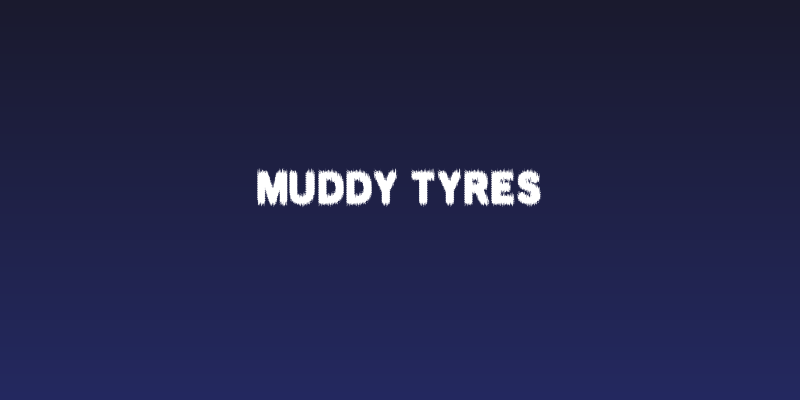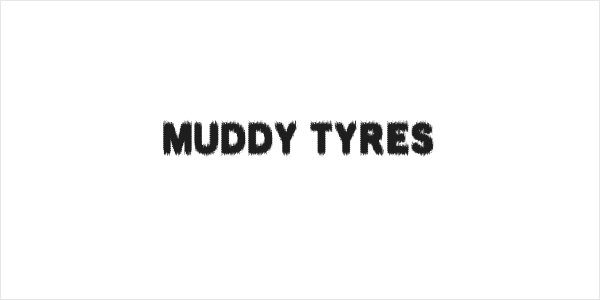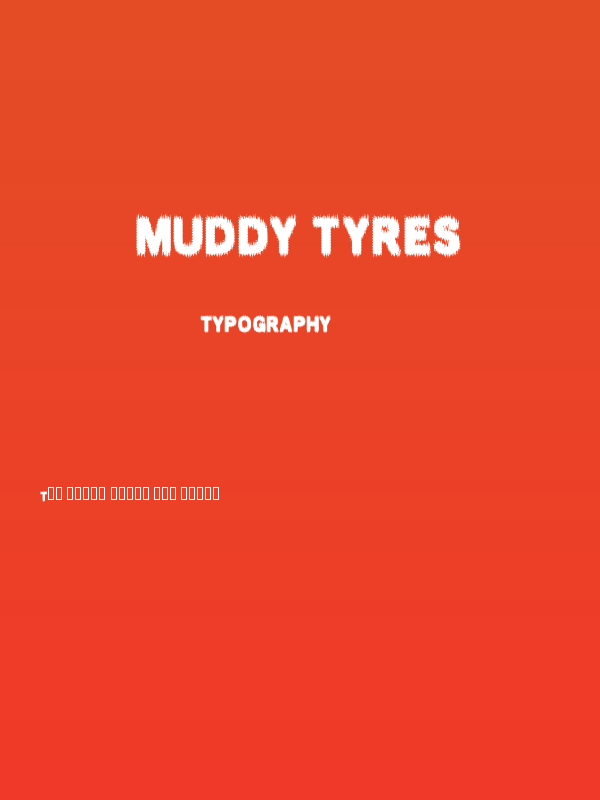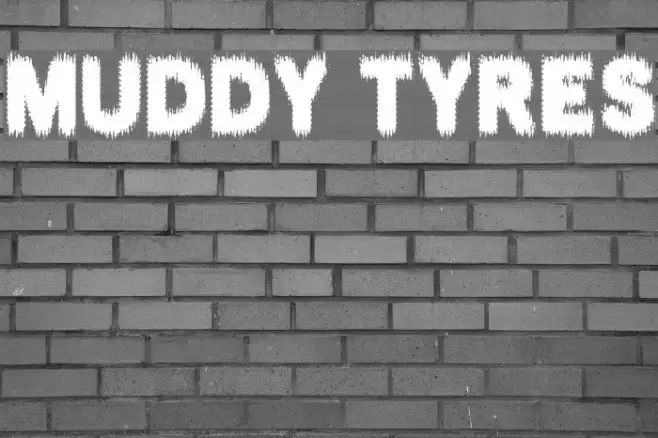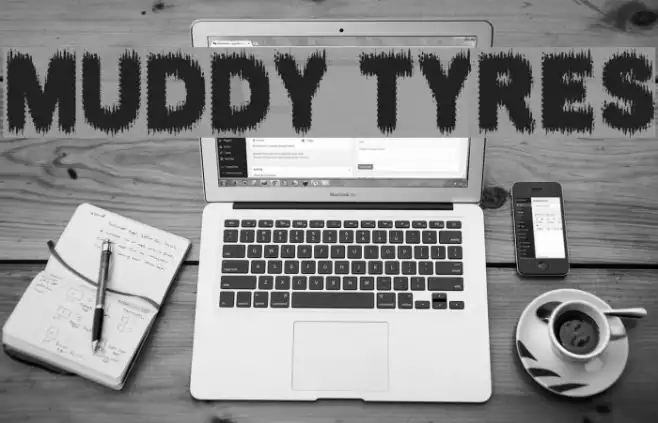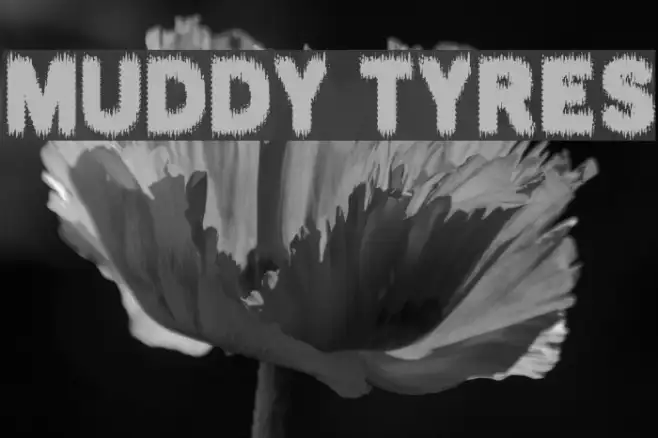
MUDDY TYRES Font
MUDDY TYRES Description
This font features a rugged, textured appearance reminiscent of mud splatters or tire tracks, giving it a dynamic and adventurous feel. The uppercase letters are bold and impactful, with a unique distressed texture that adds character and depth. The numbers and special characters maintain this rugged style, ensuring consistency across all elements. The font's design is perfect for projects that require a bold statement and a touch of edginess.
| Proposed Projects | Ideal for outdoor adventure branding, extreme sports event posters, or any design needing a bold, gritty aesthetic. |